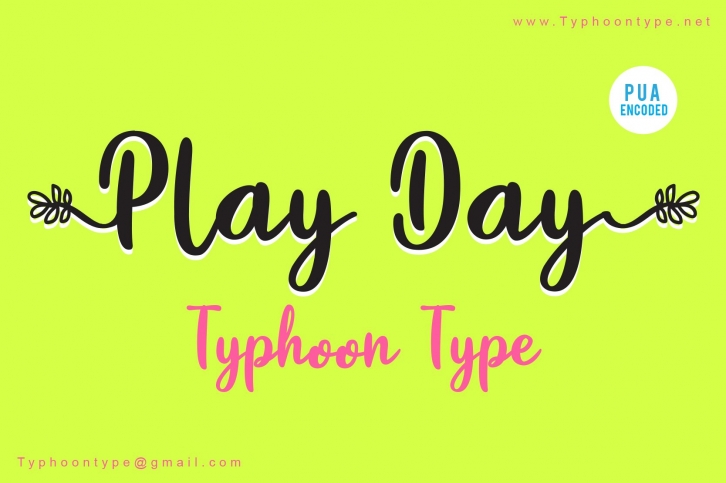
Play Day This Font perfect for logos, name tag, advertising, product packaging, clothing, social media & greeting cards.
Type ( before word to get beginning swash and Type ) after word to get the ending swash. Example : (Play Day)